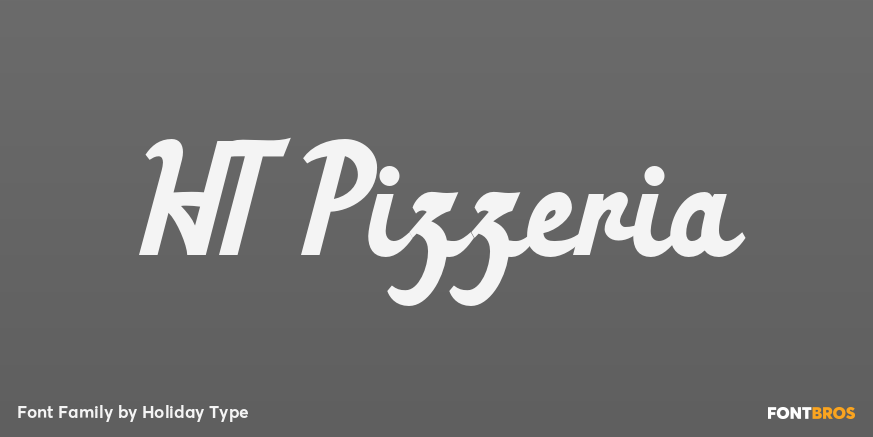
HomeFont BrosScripts: CasualHT Pizzeria Scripts: Casual HT Pizzeria FacebookXPinterestWhatsApp 1 of 1 About HT Pizzeria Retro script based on shopfront lettering, wallpaint advertisements in Italy around 1950s.  DOWNLOAD NOW People also explored Audrey Font Blizzard Font Ki Nidang Morning Love Font Seeds Font Maydina Font Howell Script Font Salting Font Vintage Creative Font 274 0 TagsHT Pizzeria Font Previous articleGhostKid AOE ProNext articleBindweed LEAVE A REPLY Cancel reply Comment: Please enter your comment! Name:* Please enter your name here Email:* You have entered an incorrect email address! Please enter your email address here Website: Save my name, email, and website in this browser for the next time I comment. Personal Use Free Antaro Personal Use Free Read more about this font Meloche Book Personal Use Free Read more about this font Cuttering Personal Use Free Read more about this font Blue Highway Personal Use Free Read more about this font BLOG Using Fonts in Digital Marketing: Tips to Strengthen Your Brand Identity In the realm of digital marketing, every visual element plays a crucial role in shaping a brand's identity, and fonts are no exception. The... Modern Sans-Serif Fonts That Brands Love in 2025 Exploring Font Trends Where to Buy American Fonts Online in 2024